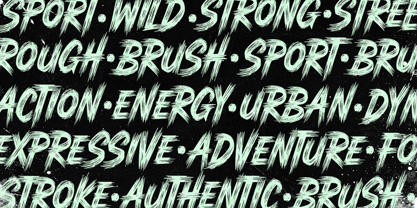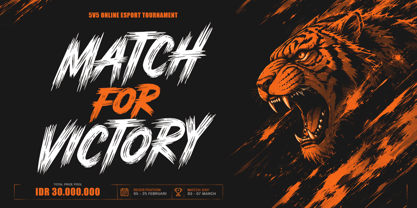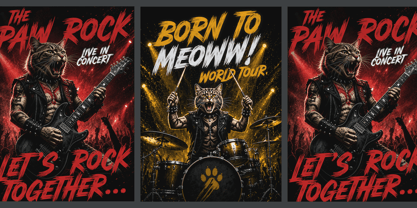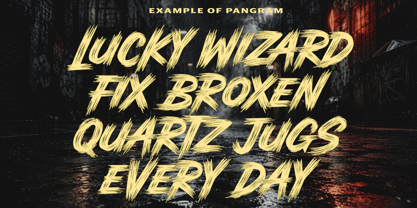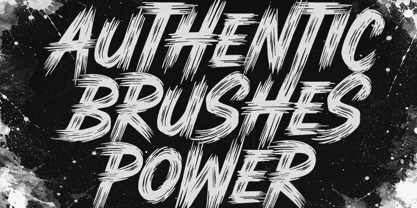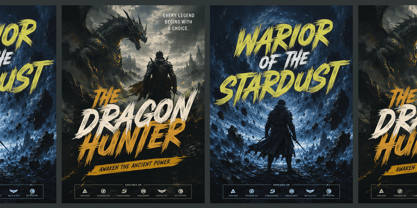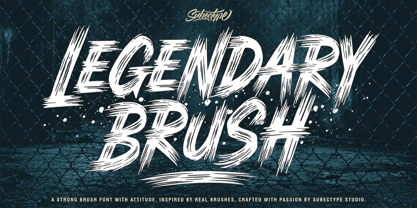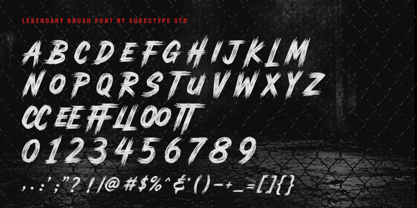
Legendary Brush
by Subectype
Say Hello to "Legendary Brush". Bring energy and personality to your designs with this bold brush font, crafted from real brush strokes to deliver an authentic hand-painted feel. Every letter features rich texture, natural ink imperfections, and expressive brush details, creating a handcrafted look that stands out in any project.
Designed for creatives who want bold typography with a modern organic touch, this font is perfect for branding, logos, packaging, posters, apparel, social media graphics, book covers, quotes, invitations, and more. Its strong brush texture adds movement and character while remaining highly readable.
Whether you're designing for lifestyle brands, coffee shops, streetwear, outdoor adventures, music events, or creative businesses, this font helps your work feel unique, energetic, and memorable.
Hello, my name is Rangga Subekti and I live in Indonesia - Madiun. Being passionate about graphic design in general. So most of my work is about creating handmade types. It can also be mixed for designing handmade typed logos also create fonts and try unique things. Hello, my name is Rangga Subekti and I live in Indonesia - Madiun. Being passionate about graphic design in general. So most of my work is about creating handmade types. It can also be mixed for designing handmade typed logos also create fonts and try unique things.